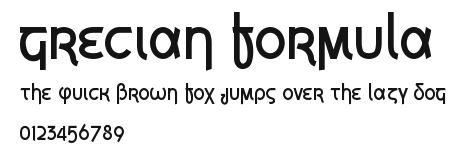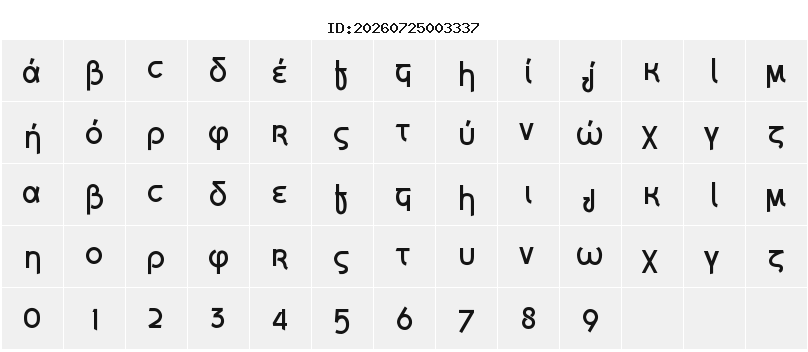
• Font Name: Grecian Formula
About Grecian Formula.ttf
Grecian Formula.ttf is a modern, elegant sans-serif font designed for ultimate readability and visual harmony. Perfect for branding, headlines, web design, and print materials.